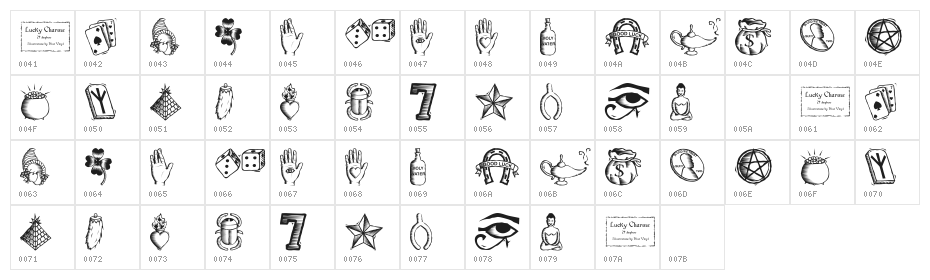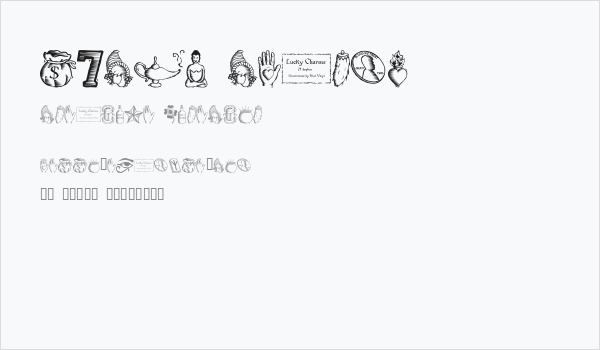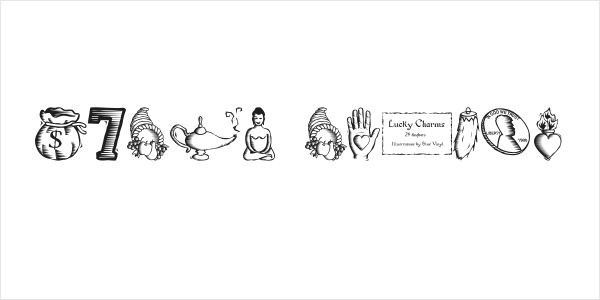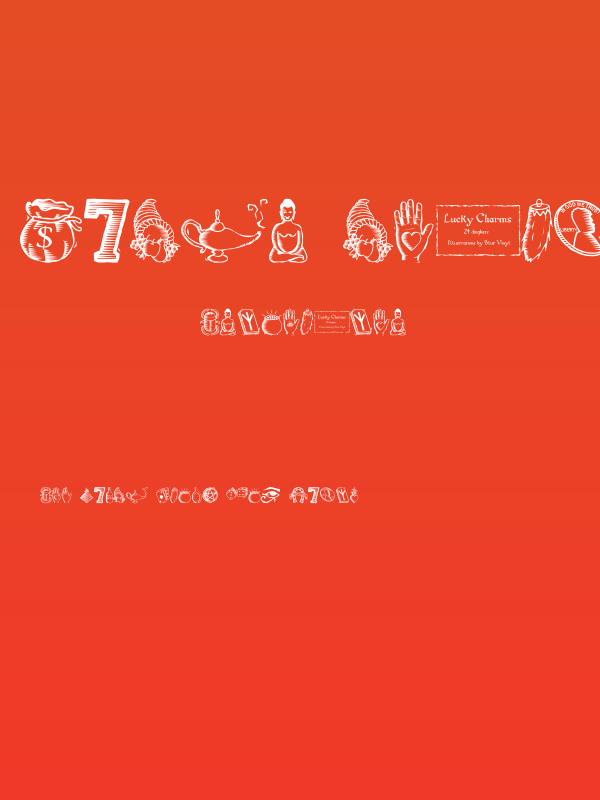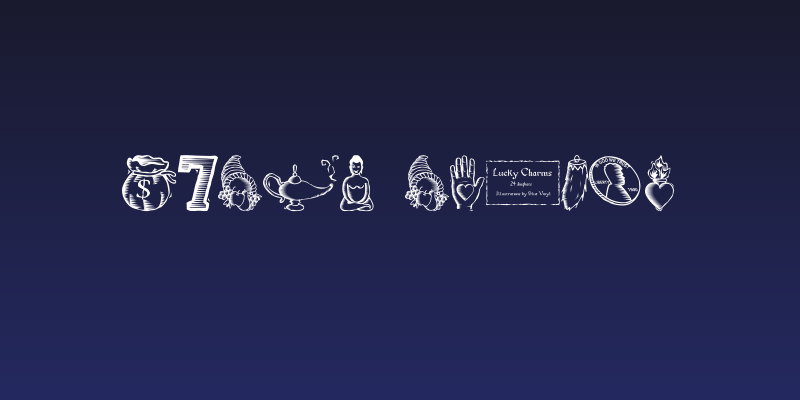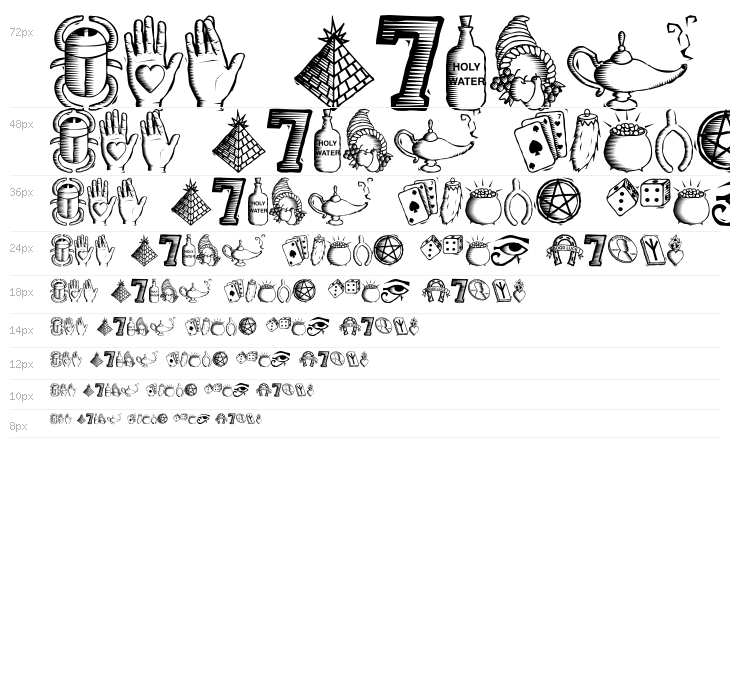
Lucky Charms Font
Lucky Charms Description
This is not a traditional font but rather a collection of decorative symbols and illustrations. The design features a variety of lucky charm motifs, including clovers, dice, hands, and other mystical symbols. Each character is an intricate illustration, making it more of a decorative set than a functional typeface. The style is whimsical and playful, with a hand-drawn aesthetic that adds a touch of charm and personality.
| Use Case | Logos, Decorative elements |
| Proposed Projects | Ideal for creative projects such as greeting cards, posters, or themed party invitations where a playful and mystical aesthetic is desired. |